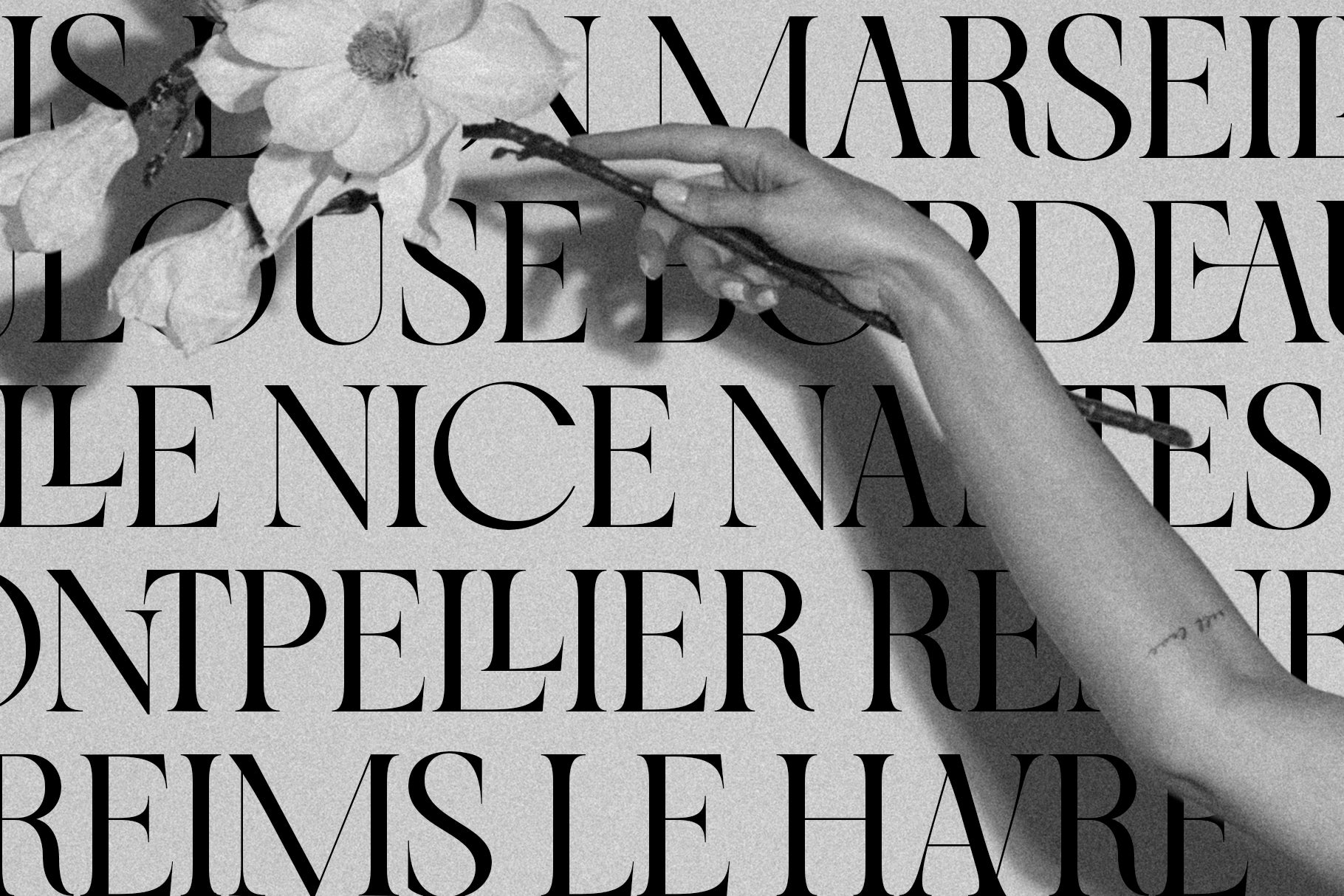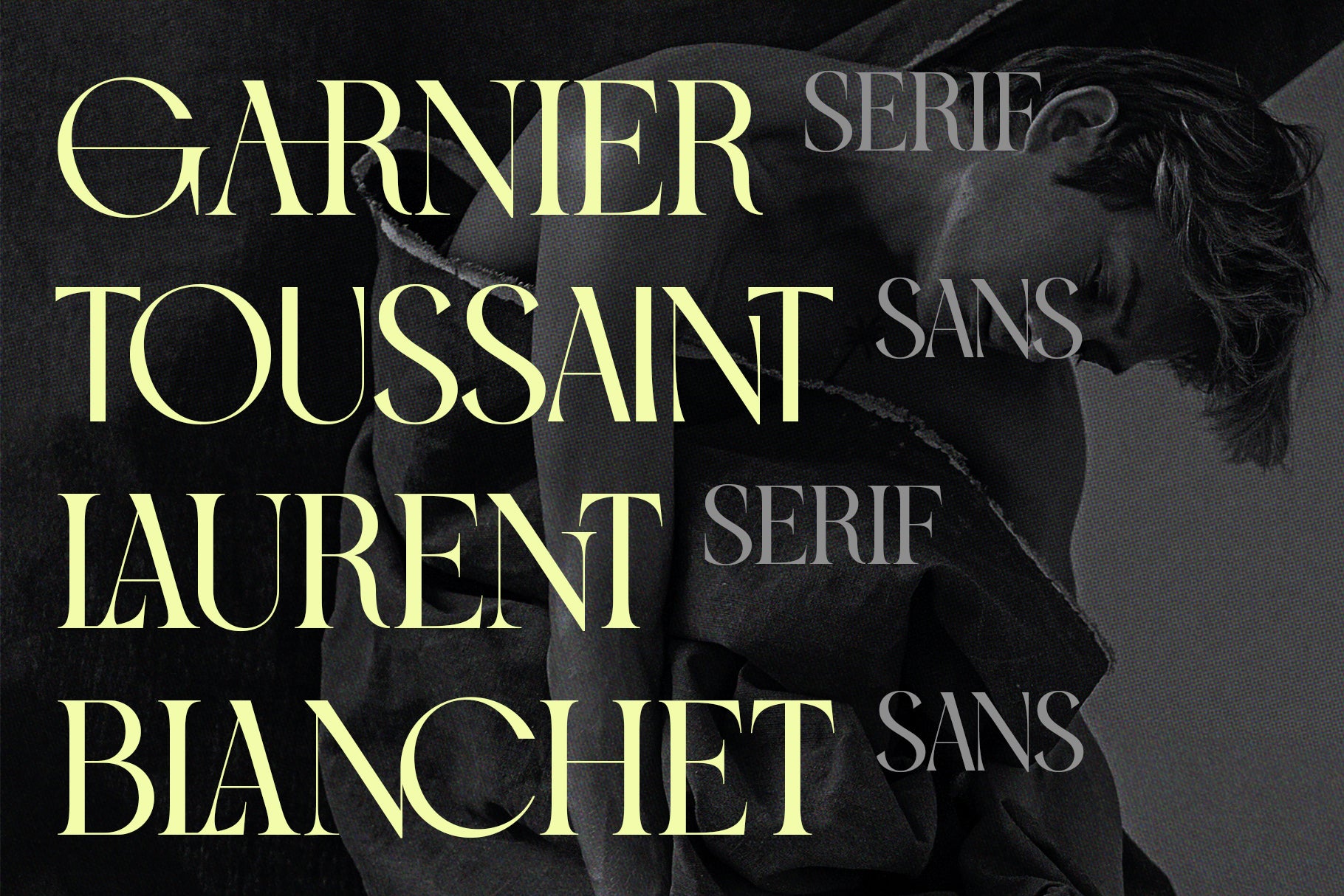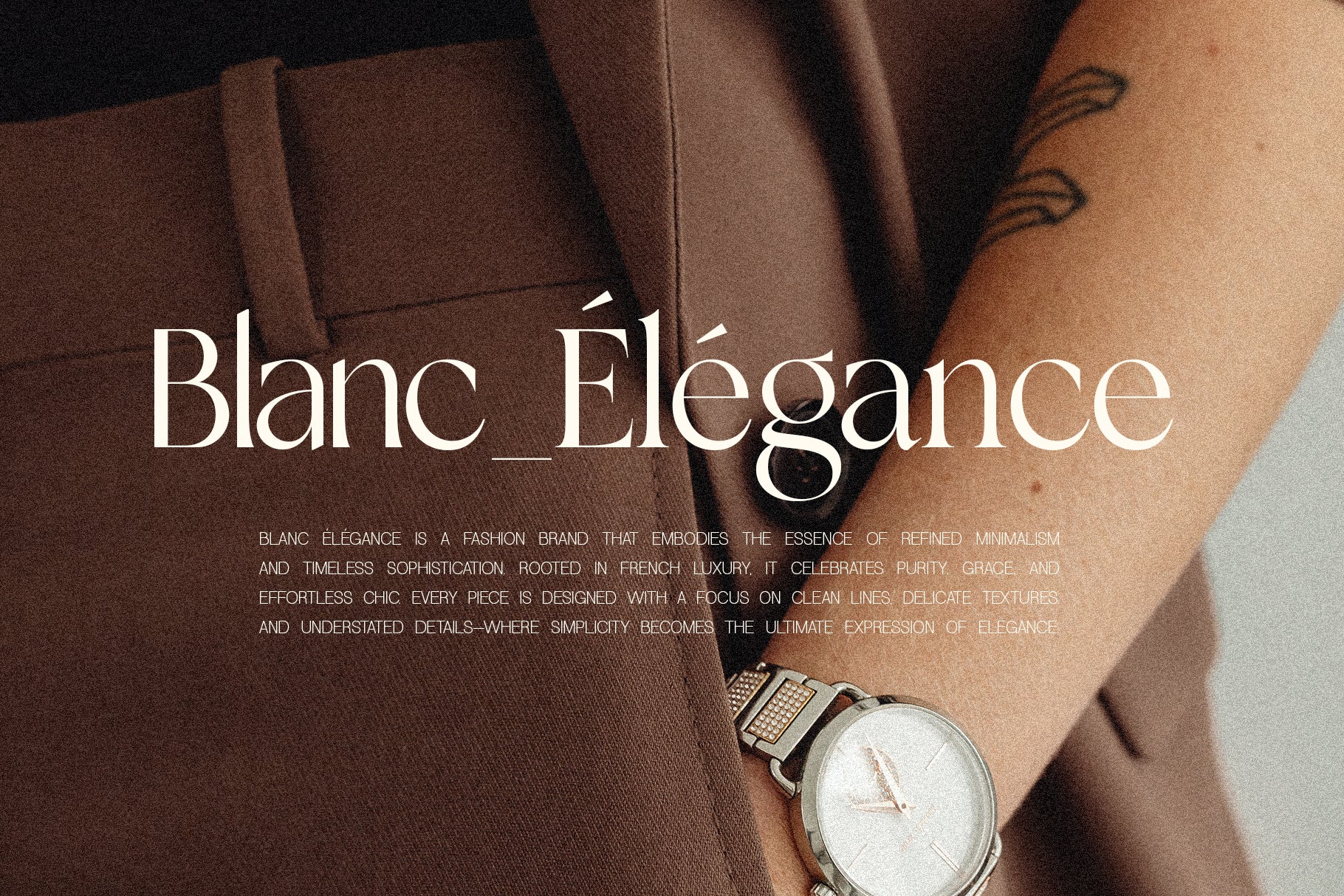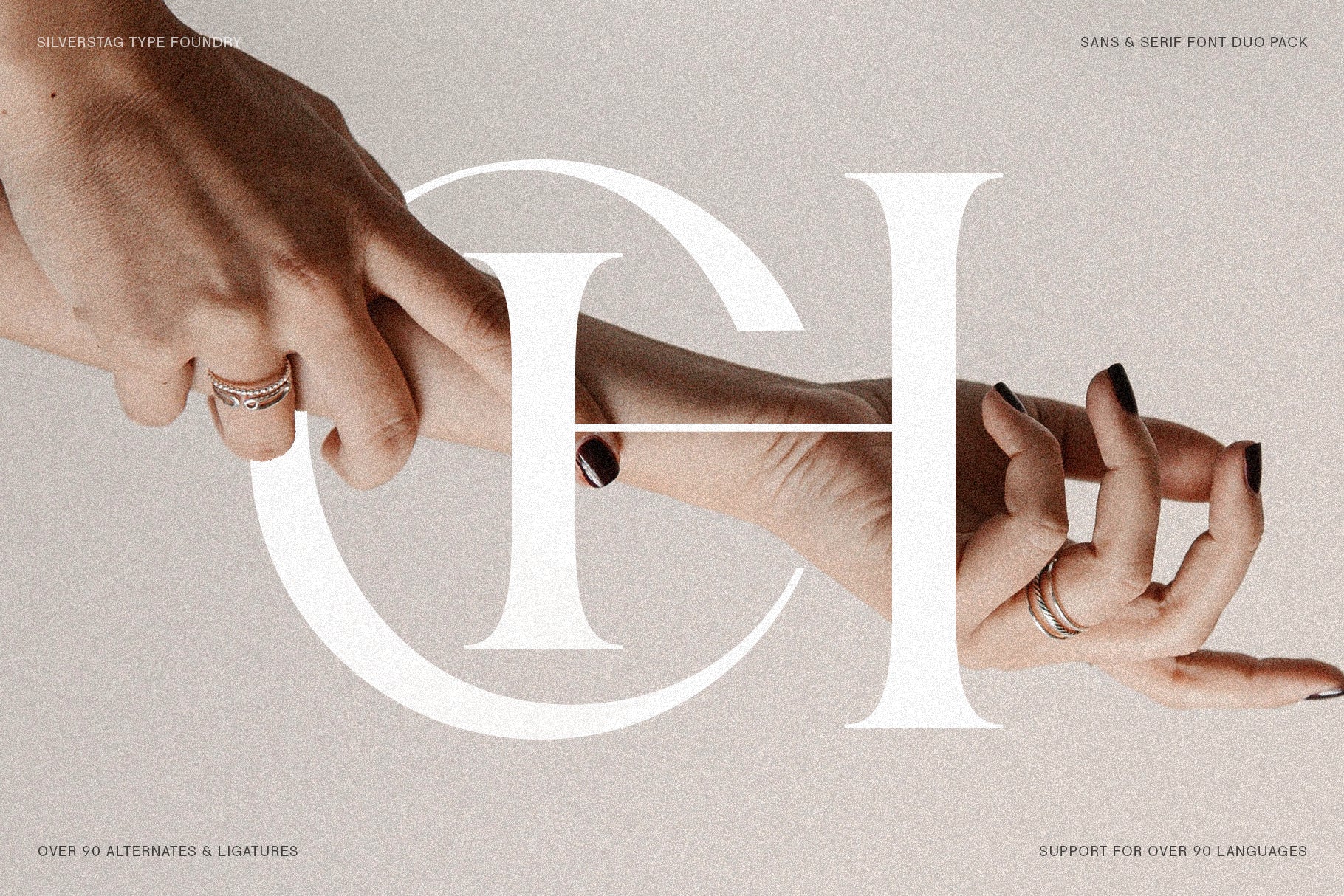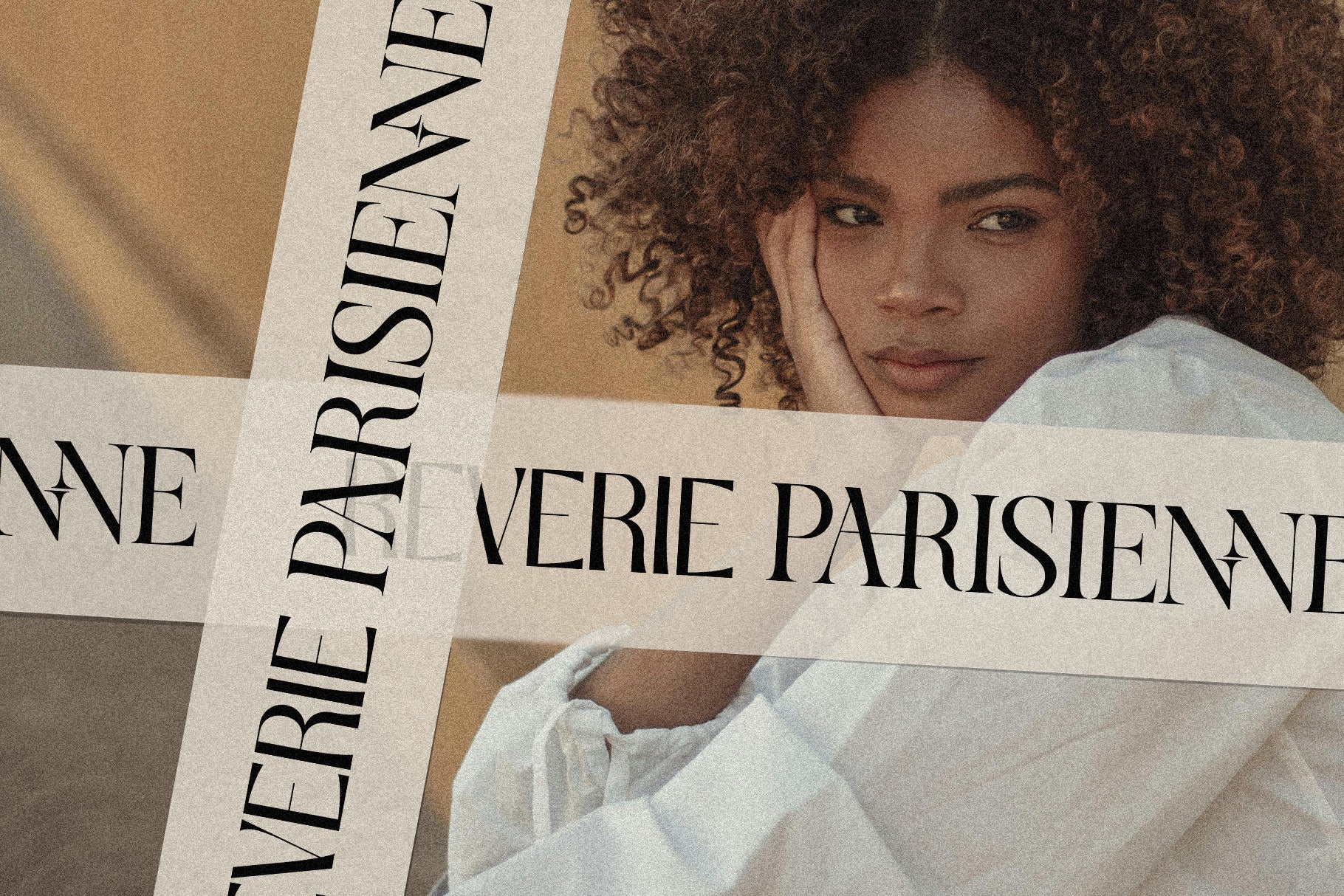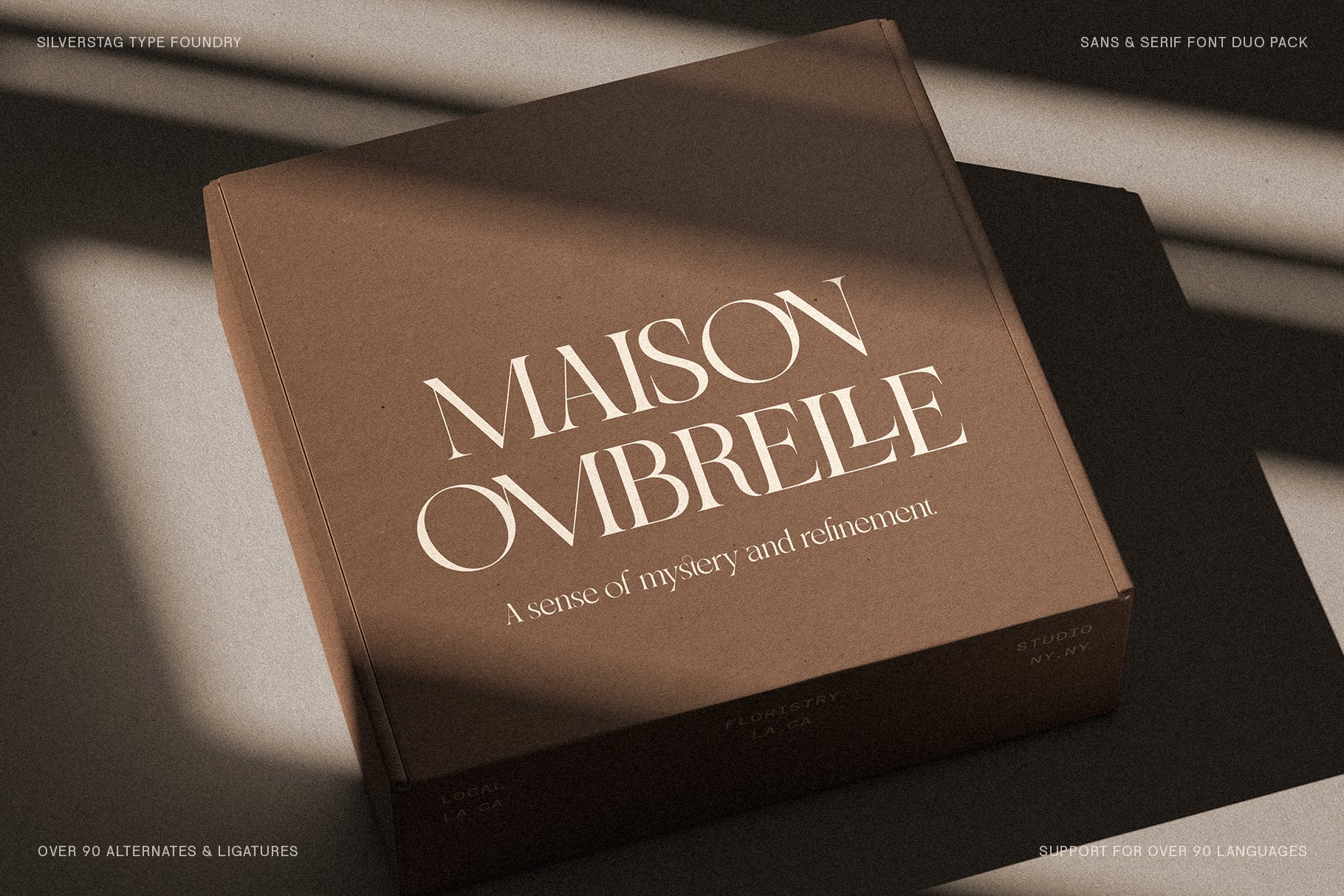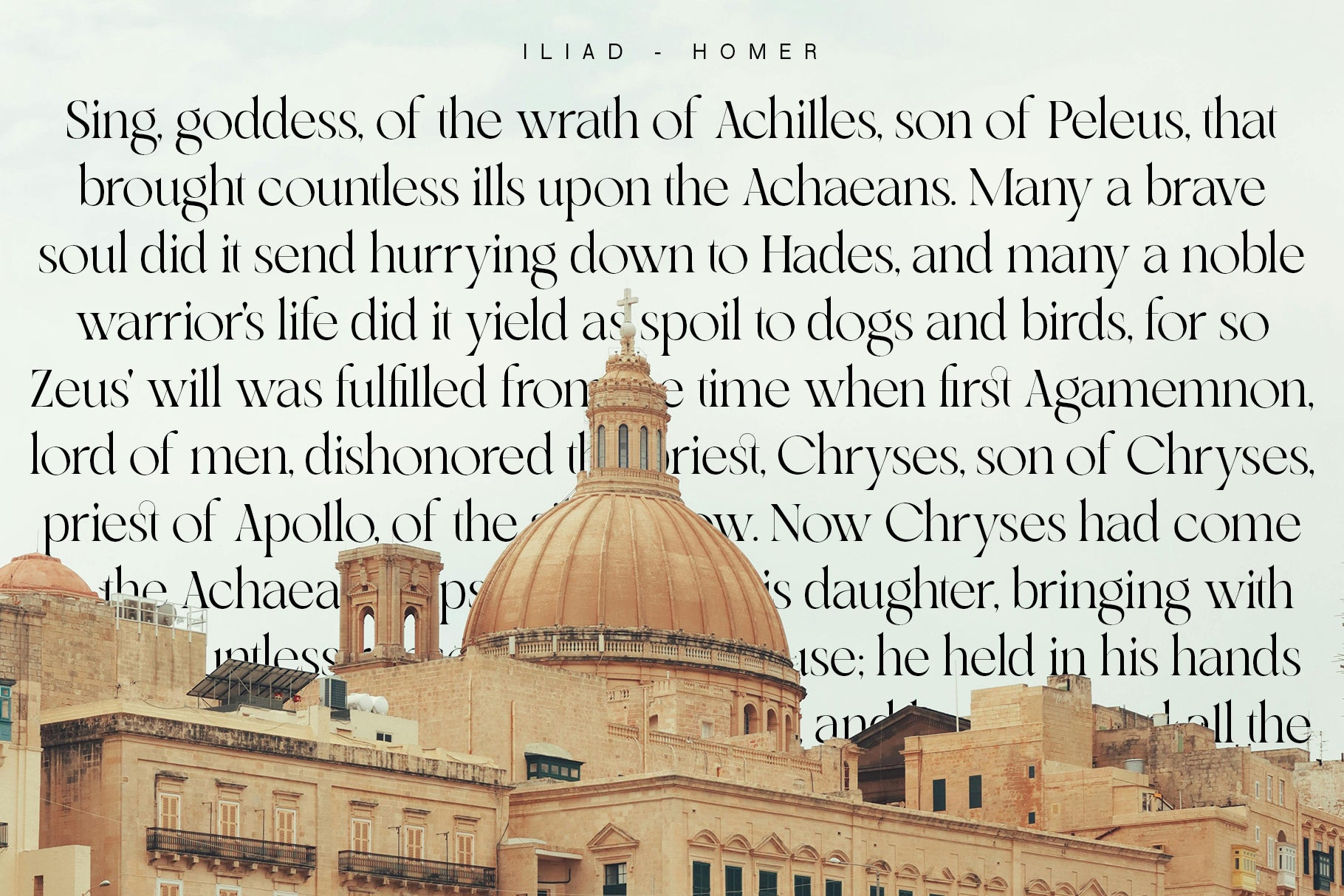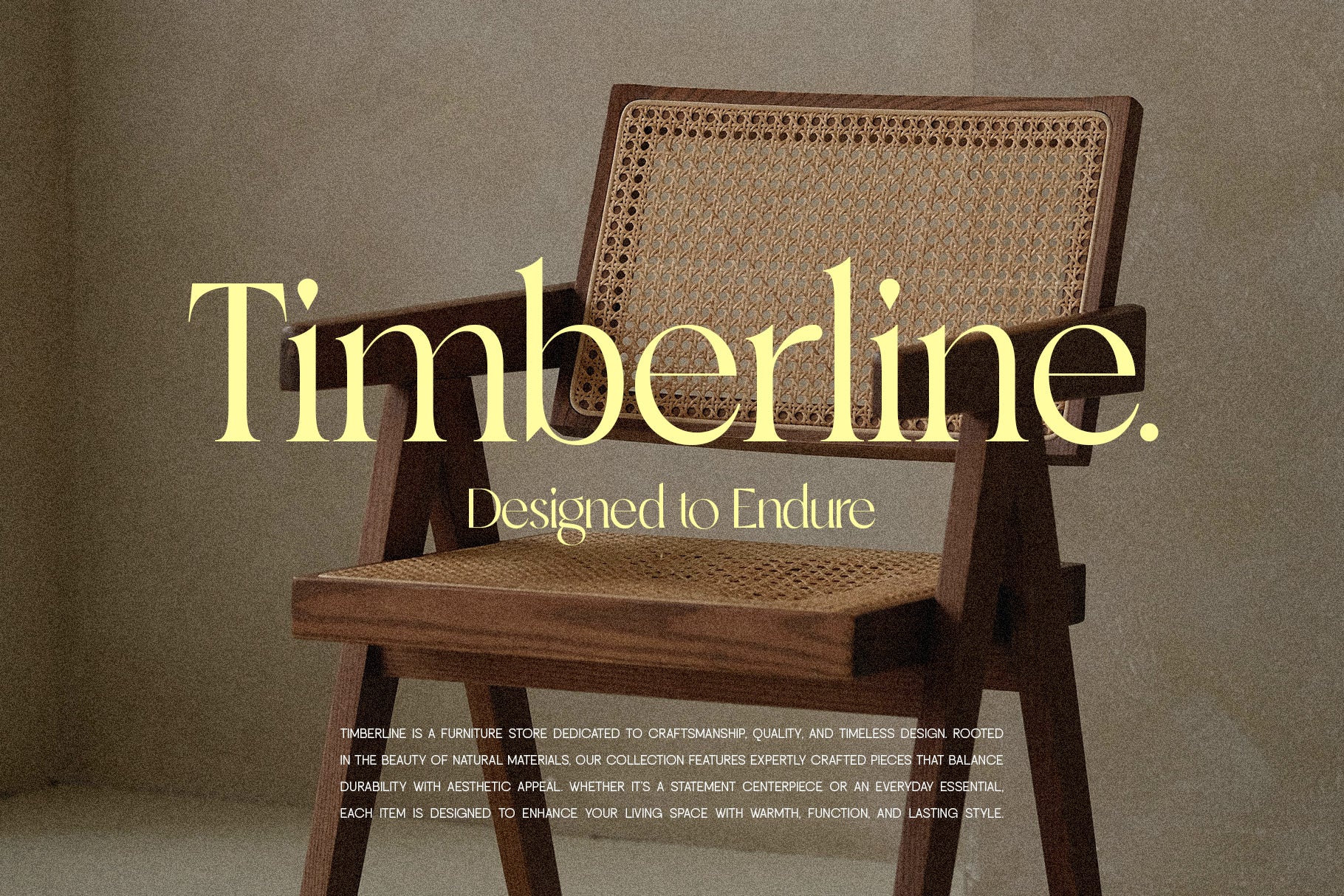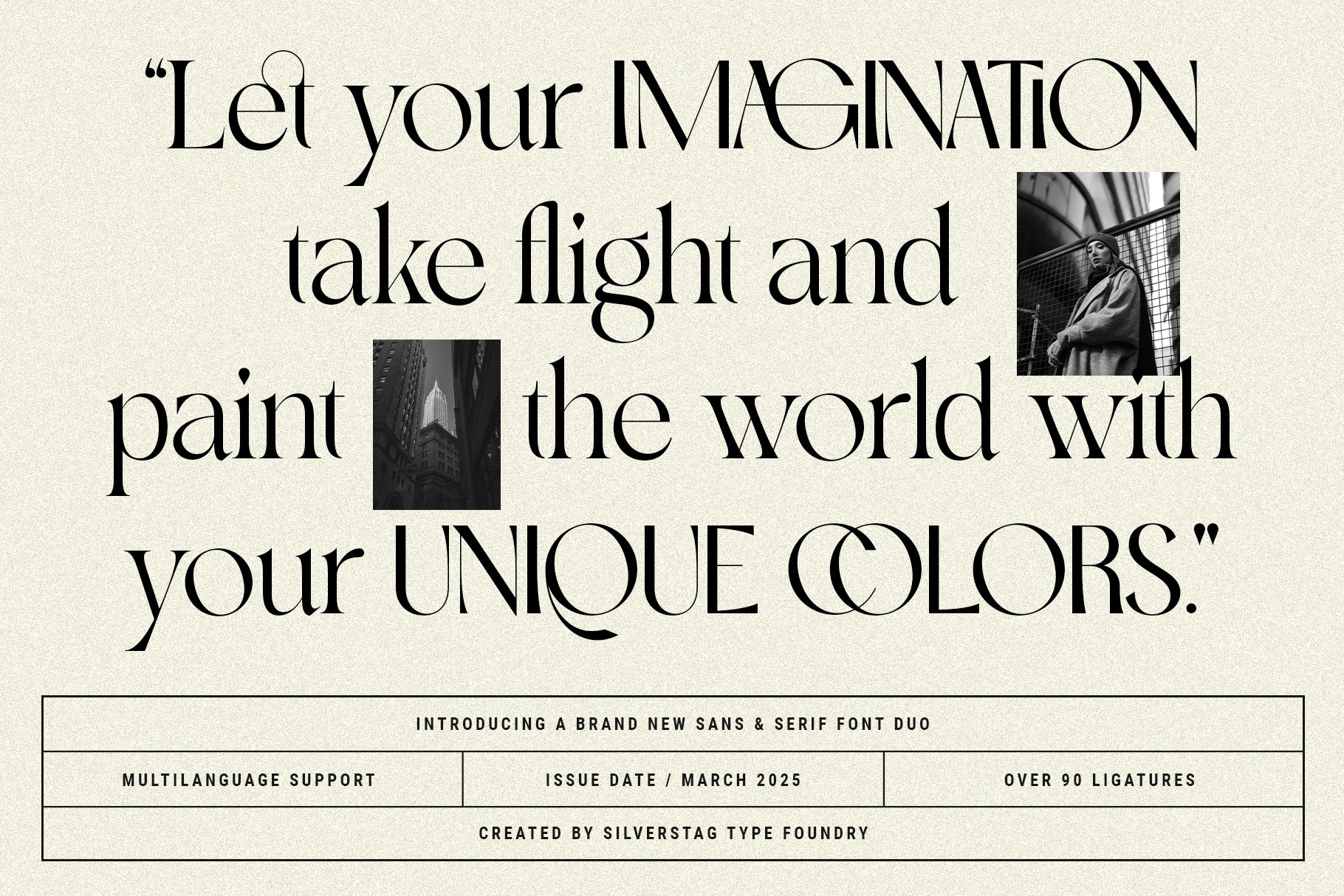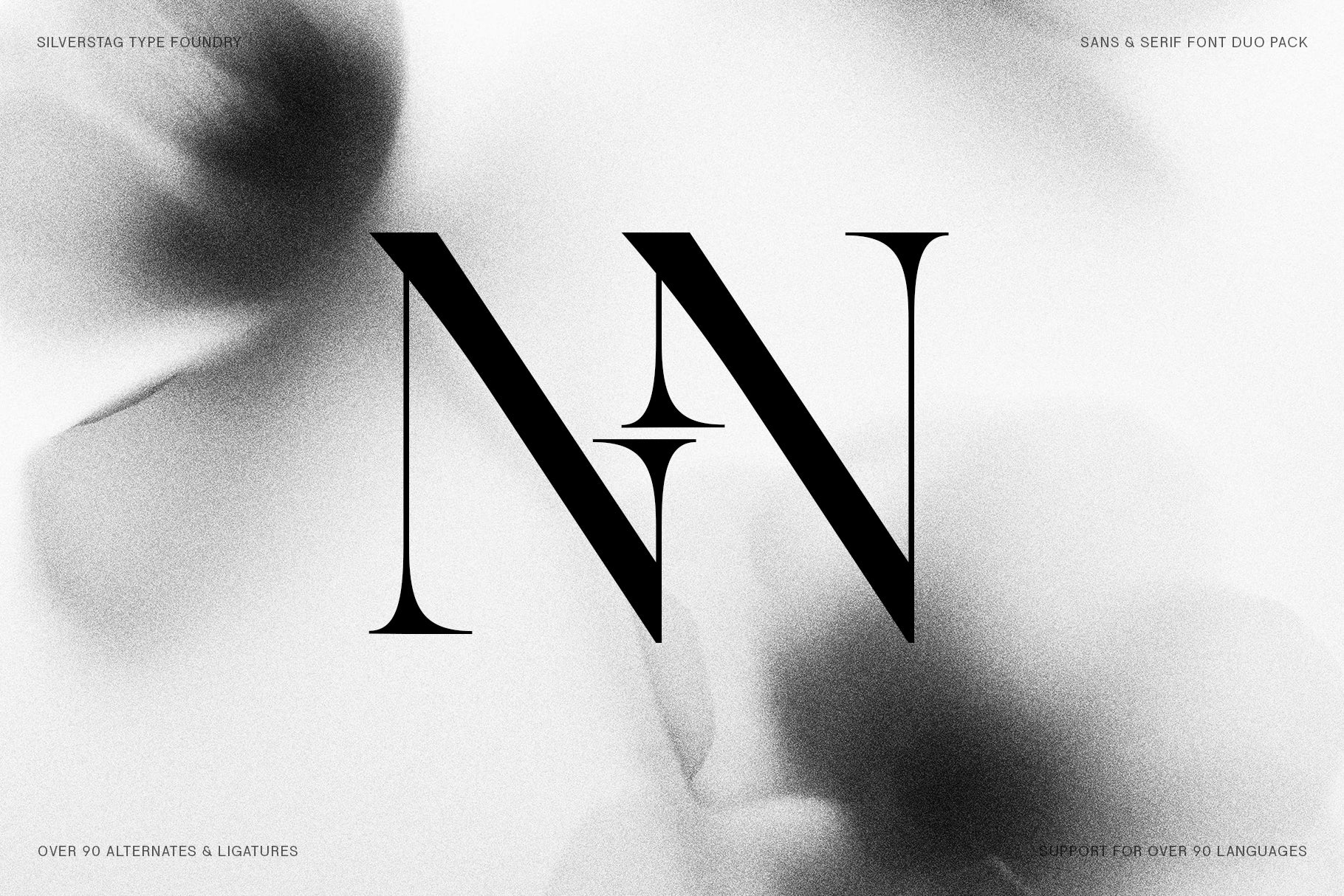
SLTF Night Windfall - Sans & Serif Font Duo
SLTF Night Windfall is a sophisticated sans and serif font duo built for designers who value balance, versatility, and high-end aesthetics. Based on the original SLTF Night Windfall sans, this refined release introduces a matching serif companion—crafted with identical metrics for seamless pairing, layering, and contrast.
Whether you prefer the modern clarity of the sans or the graceful formality of the serif, the two styles work in harmony across branding, editorial design, luxury packaging, and digital media. With over 90 custom ligatures and support for 90+ languages, Night Windfall lets you create fluid, expressive typography with global reach.
Perfectly suited for professional designers and creatives, this duo ensures effortless alignment, elegant rhythm, and cohesive design flow—whether used independently or together.
SLTF Night Windfall high contrast sans and serif duo - Lune d'Hiver winter brand in white over a portrait of a woman in a black turban on sage green
SLTF Night Windfall high contrast sans and serif duo - sans versus serif comparison of Garnier Toussaint Laurent and Blanchet in lime type on a dark portrait
SLTF Night Windfall high contrast sans and serif duo - Romeo and Juliet headline treatment in maroon over a marbled tulip
SLTF Night Windfall high contrast sans and serif duo - serif and sans name specimen of Amaior Atherton Arcadia and Anderson in cream
SLTF Night Windfall high contrast sans and serif duo - Reverie Parisienne wordmark on a ribbon over a portrait of a woman with curly hair
SLTF Night Windfall high contrast sans and serif duo - Iliad by Homer body text paragraph over a domed cathedral photo
SLTF Night Windfall high contrast sans and serif duo - let your imagination take flight motivational headline with a font duo spec card
SLTF Night Windfall high contrast sans and serif duo - Romeo and Lara wordmark on blush envelope and stationery mockups
SLTF Night Windfall high contrast sans and serif duo - Château Mirage serif over a photo of flying seagulls
SLTF Night Windfall high contrast sans and serif duo - coffee menu listing Cappuccino Marocchino Affogato and Ristretto over a cappuccino cup
SLTF Night Windfall high contrast sans and serif duo - Maison embossed serif on a framed box mockup in a dim setting
SLTF Night Windfall high contrast sans and serif duo - wall of world cities including Amsterdam Madrid and Los Angeles in serif over a moody green photo
SLTF Night Windfall high contrast sans and serif duo - Take me to Barcelona and Madrid serif over a draped brown fabric photo
SLTF Night Windfall high contrast sans and serif duo - Le Atelier est 1967 serif over a person in white seated on a chair
SLTF Night Windfall high contrast sans and serif duo - wall of French cities such as Marseille Toulouse Bordeaux Nice and Le Havre in serif caps over a black and white floral photo
SLTF Night Windfall high contrast sans and serif duo - Noir Désir sophisticated bold and evocative serif on a kraft box mockup
SLTF Night Windfall high contrast sans and serif duo - Reverie magazine fashion artistic expression spread open on a surface
SLTF Night Windfall high contrast sans and serif duo - Blanc_Élégance fashion brand in white over a person in brown with a wristwatch
SLTF Night Windfall high contrast sans and serif duo - CH monogram ligature in white over a hands and rings photo
SLTF Night Windfall high contrast sans and serif duo - Maison Ombreile a sense of mystery and refinement serif on a brown box mockup
SLTF Night Windfall high contrast sans and serif duo - Timberline designed to endure serif over a wooden cane chair
SLTF Night Windfall high contrast sans and serif duo - NN ligature monogram in black serif over a soft blurred floral background
SLTF Night Windfall high contrast sans and serif duo - Noir Désir serif on a pair of stacked kraft boxes
SLTF Night Windfall high contrast sans and serif duo - Haute Couture Herald magazine fashion speaks spread open on a surface
SLTF Night Windfall high contrast sans and serif duo - OER couture monogram over a person in a pink suit
SLTF Night Windfall high contrast sans and serif duo - The Night Windfall Sans plus Serif specimen card describing the chic editorial serif and elegant sans
SLTF Night Windfall high contrast sans and serif duo - at symbol glyph showcase beside a protea flower on cream
SLTF Night Windfall high contrast sans and serif duo - oversized Madrid wordmark in cream over a black and white photo of Plaza Mayor in Madrid